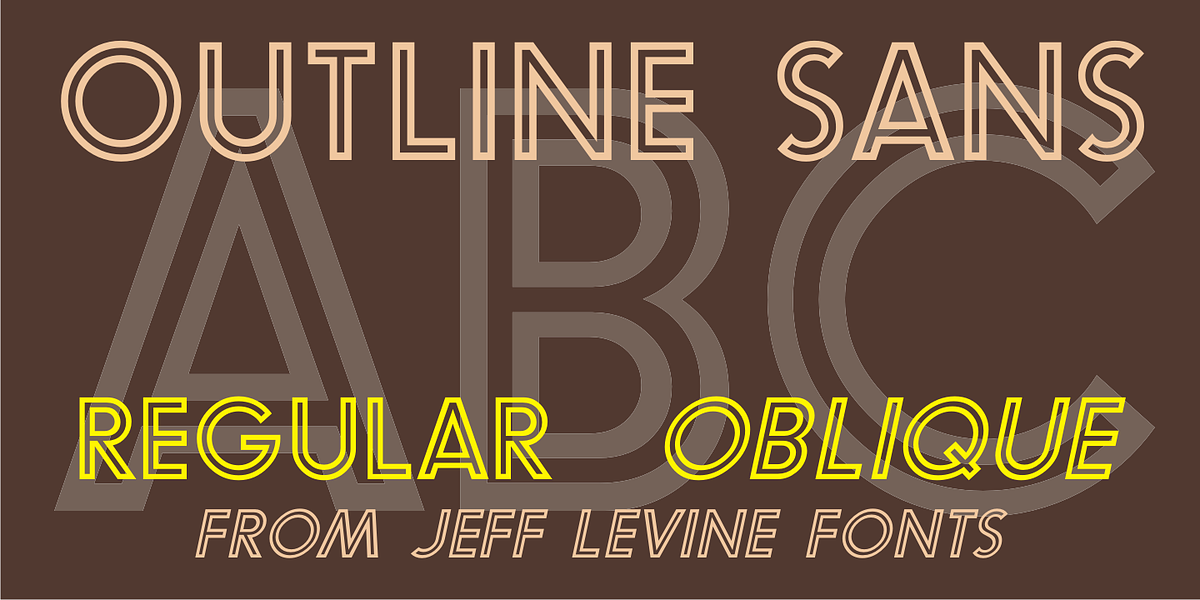
Outline Sans JNL
The cover of the 1939 sheet music for “I Wonder Who’s Kissing Her Now” has the title set in an outline sans… or is in an inline? With almost equal space and line weights, it can be either!
Outline Sans JNL in available digitally in both regular and oblique versions.